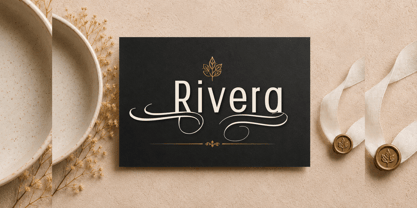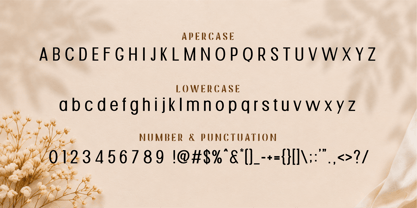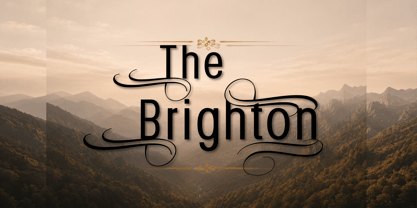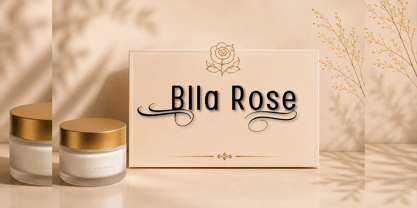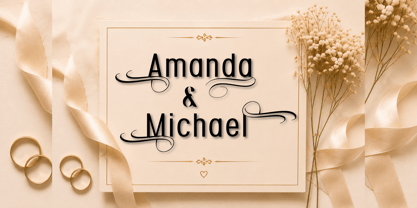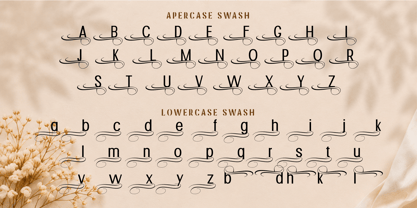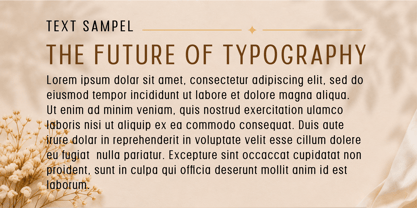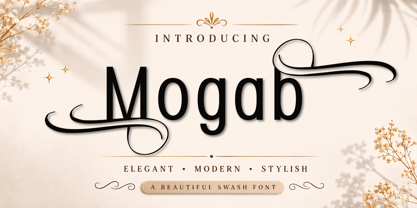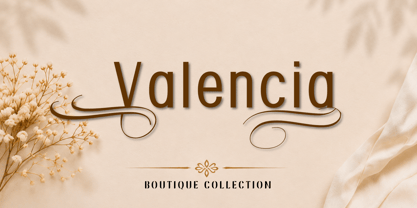
Mogab
The Mogab Font Family was designed by Reza Mukhtazar and published by Rezastudio. Mogab contains 1 styles. More about this family
Mogab is a sophisticated modern font that blends clean letterforms with graceful swash details, creating a perfect balance between elegance and readability. Designed for creators who want to add a luxurious and stylish touch to their projects, Mogab features beautiful flowing swashes that instantly elevate logos, branding, wedding designs, packaging, invitations, social media graphics, and premium product presentations.
With its modern aesthetic and decorative flourishes, Mogab is ideal for creating eye-catching headlines and memorable brand identities while maintaining a refined and professional appearance.